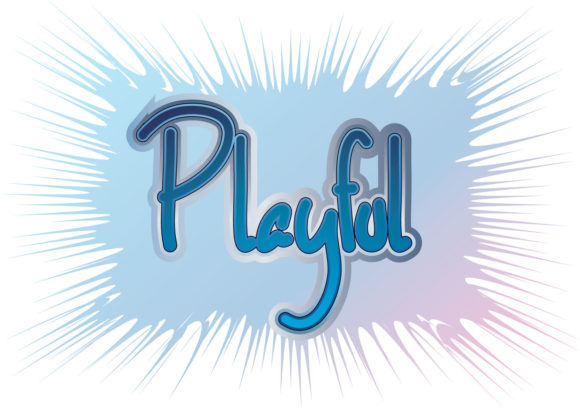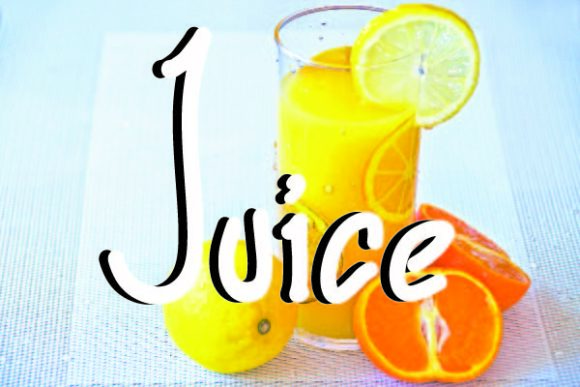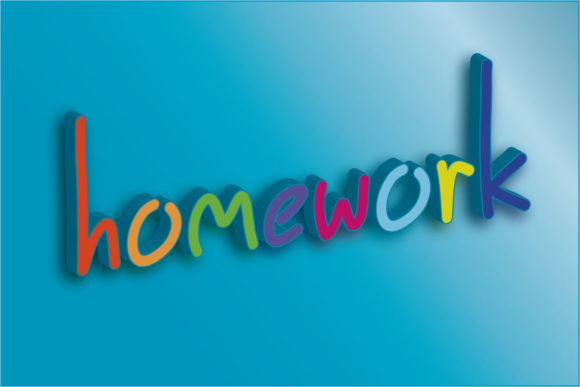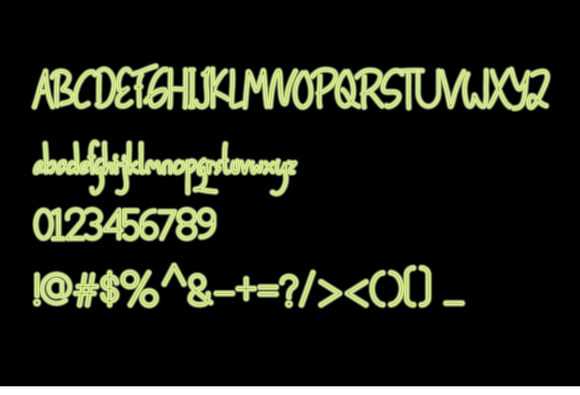
About Playful Font
Playful is an elegant and dainty handwritten font that features sweet and delicate swashes. This original look will appeal to a wide range of crafty ideas, from letterheads and titles, to stationery.